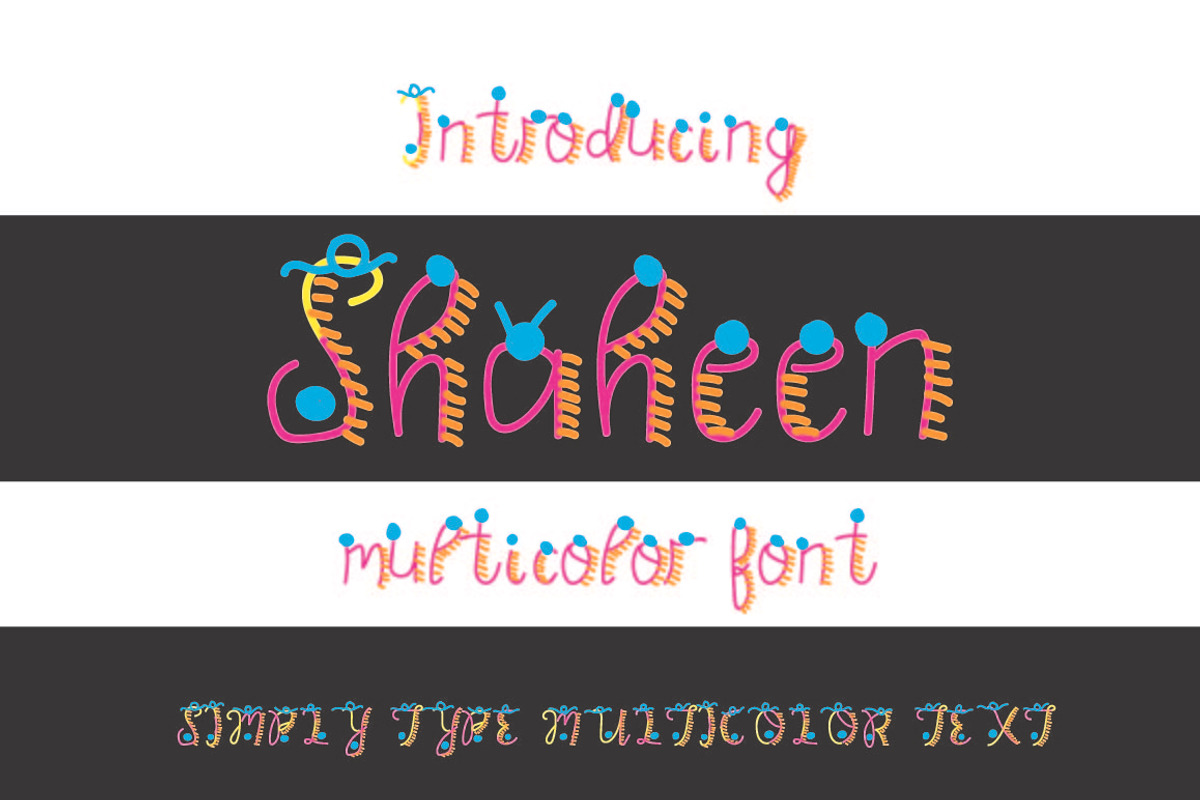
Shaheen Multicolor Font
Shaheen is a multicolor font.
Shaheen is made using the Fontself software,
Why Shaheen Multicolor Font is worth a look
Shaheen Multicolor Font by Zmapist fits naturally into Branding, posters, packaging, typography.